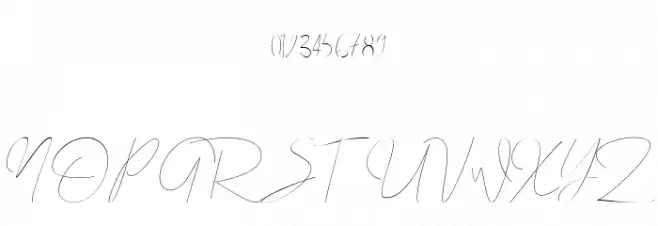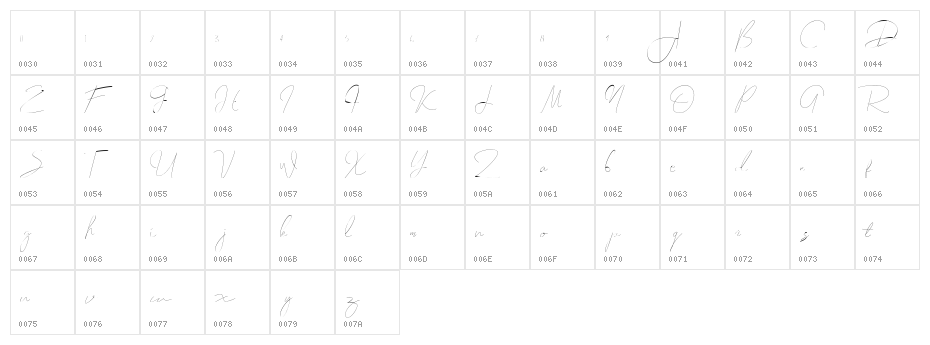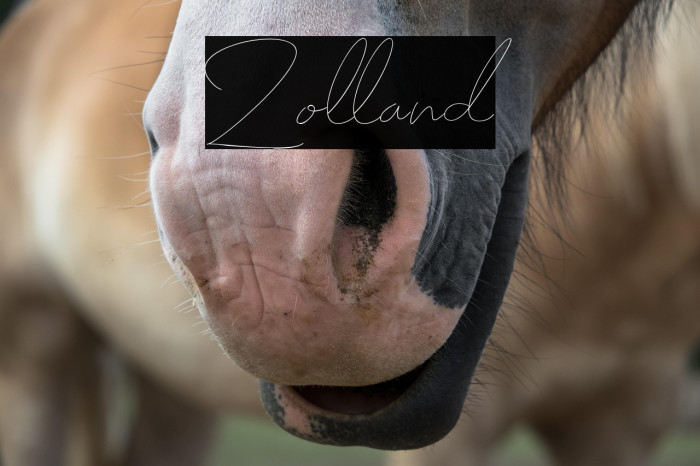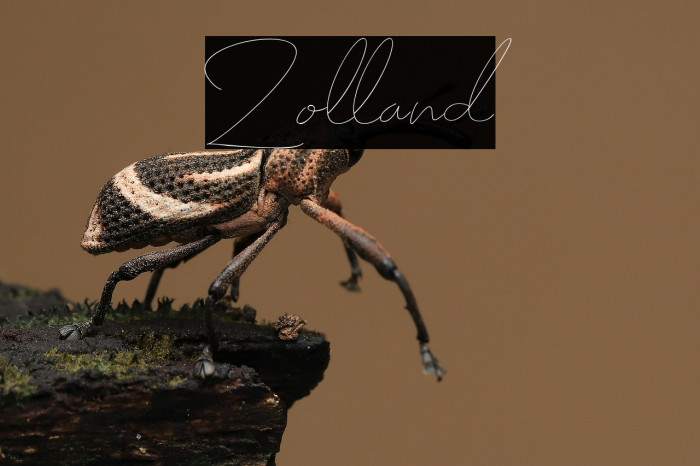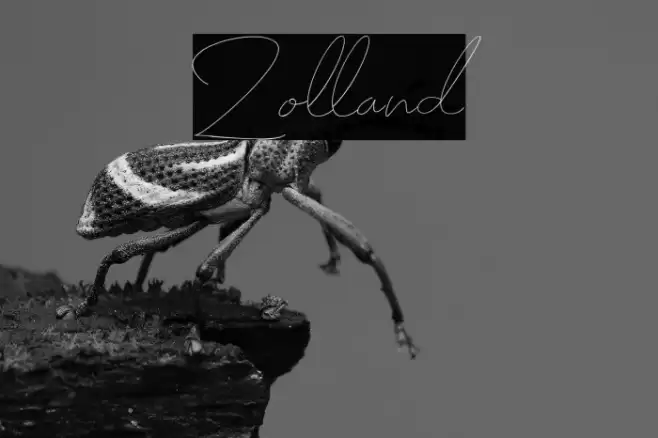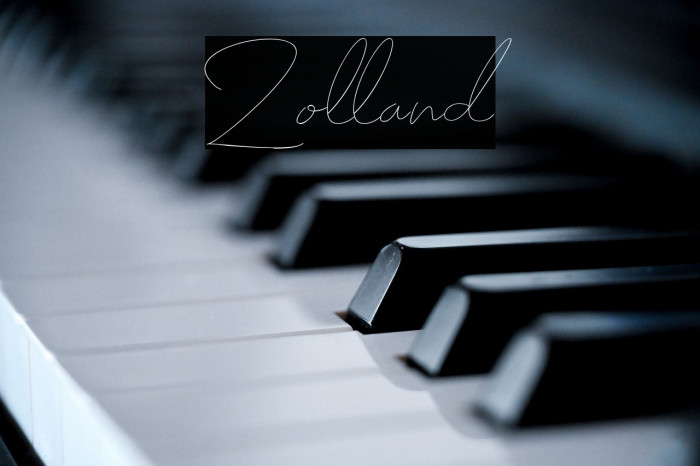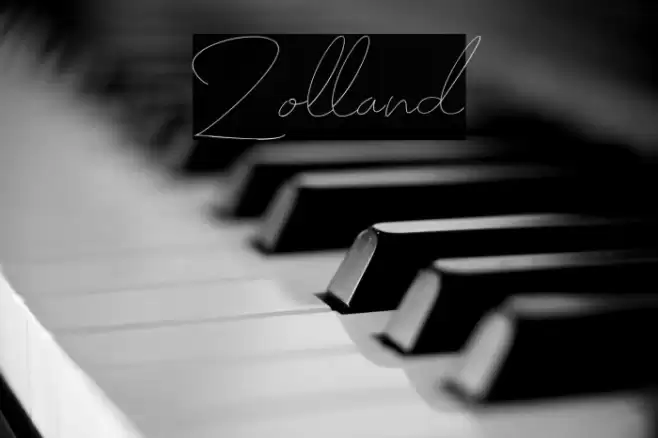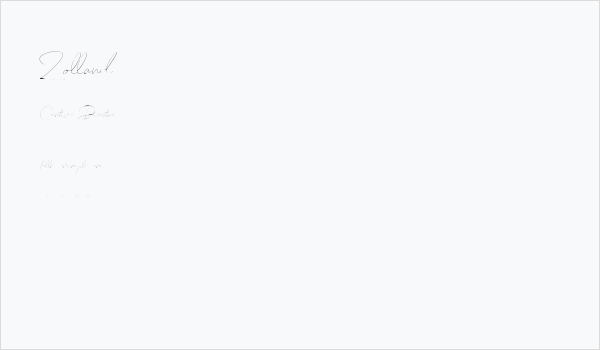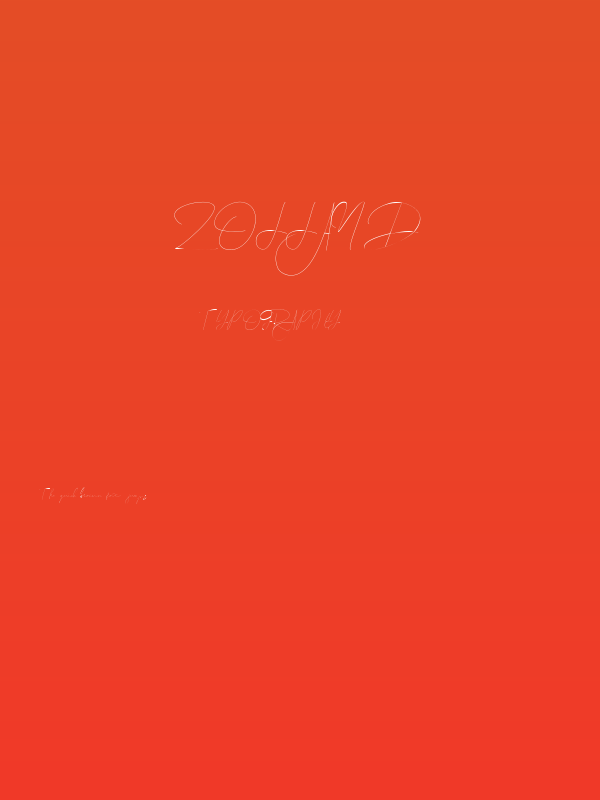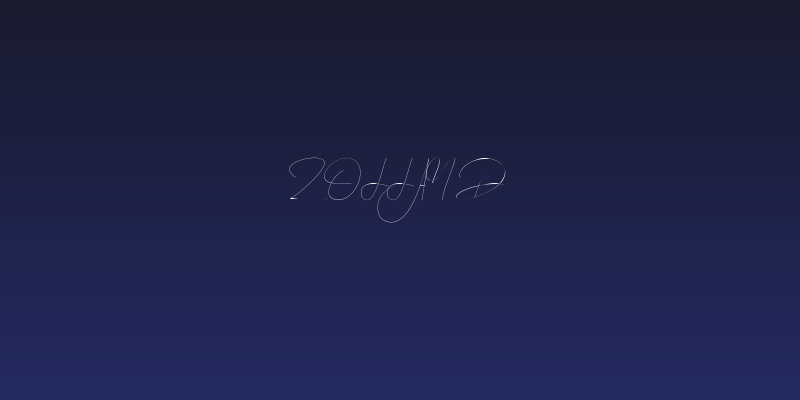
Zolland Font
Zolland Description
This elegant script font features a delicate and flowing design, with each letter seamlessly connecting to the next. The strokes are thin and graceful, giving it a refined and sophisticated appearance. The uppercase letters are slightly more elaborate, with gentle curves and loops that add a touch of flair. The lowercase letters maintain a consistent style, with smooth transitions and a harmonious balance. The numbers are equally stylish, matching the overall aesthetic of the font. This font exudes a sense of elegance and is perfect for projects that require a touch of class and sophistication.
| Proposed Projects | Ideal for wedding invitations, elegant branding, personal stationery, and high-end product packaging. |